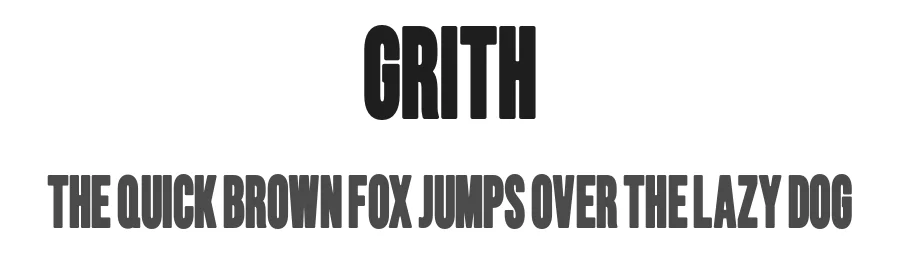
About Agrem Font
Maulana Creative
| Designer | MaulanaCreative |
Agrem Font is a versatile sans-serif font that works for both headings and body text. Pair it with a contrasting serif or slab serif font to add visual interest and a clear distinction between titles and body copy.